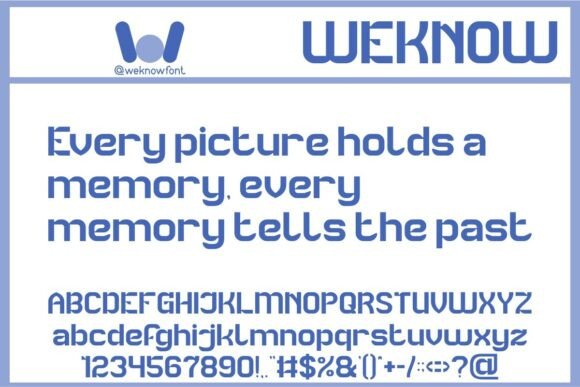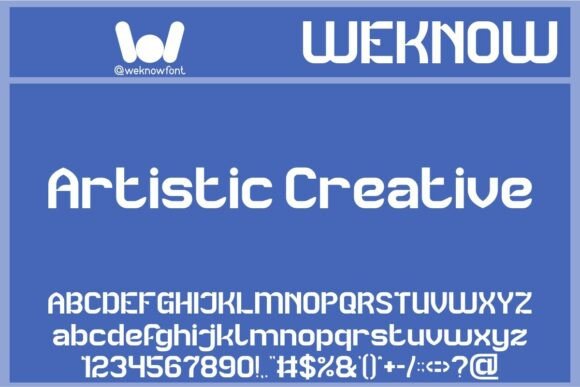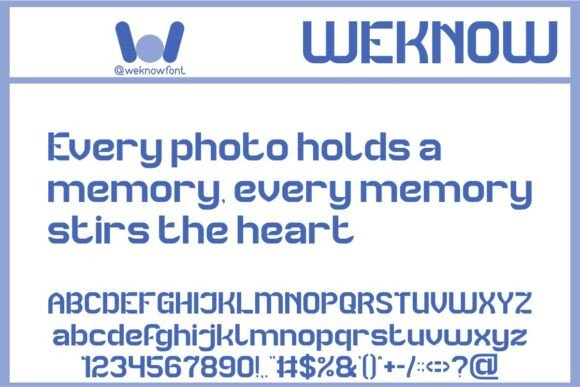
Introduction to Slide Show Font
Imagine you’re working on a creative project, and you need a font that exudes modernity and sophistication. You’re browsing through various design resources, searching for that perfect typeface to elevate your design to the next level. Suddenly, you stumble upon the Slide Show Font, a sleek and futuristic sans serif font that instantly grabs your attention.
As a designer, you know how valuable a high-quality font can be in making your work stand out. The Slide Show Font is not just another font; it’s a design powerhouse that can transform your creative projects into breathtaking masterpieces. With its transparent background and versatility, it’s the perfect addition to any design resource collection. Whether you’re working on a logo, a magazine cover, or a YouTube video, the Slide Show Font is sure to make your project shine.
Key Features of Slide Show Font
- Unique and stylish font, ideal for presentations and slide shows, with a transparent background for easy customization.
- Designed to be highly legible, even at small font sizes, making it perfect for slide shows and presentations.
- Can be easily resized and styled to fit any design project, from business presentations to creative portfolios.
Honest Review: Slide Show Font
I recently came across the Slide Show Font, and I’m excited to share my thoughts on this design resource. As a designer, I’m always on the lookout for high-quality fonts that can elevate my creative projects.
- ✨ High-quality font with a clear, transparent background, making it perfect for presentations and slides.
- ✨ Wide range of styles and variations, giving me plenty of options to choose from.
- ⚠️ Limited support for foreign languages, which could be a concern for projects that require multilingual support.
- ⚠️ Not ideal for print materials, as the font may not scale well.
Overall, I’m impressed with the Slide Show Font. It’s a great addition to any designer’s toolkit, and I appreciate the fact that it’s available for free download. While it has some limitations, it’s a solid choice for digital projects, and I’ll definitely be using it for my next presentation.
For the best results, use Slide Show Font on a design with a transparent background to create a clean and professional look. You can also use it in combination with other design resources to add variety to your creative project.
Slide Show Font is ideal for presentations, posters, and other visual materials where a clear and easy-to-read font is needed. It’s also a great choice for designers who want a high-quality font that’s easy to use in their creative project.